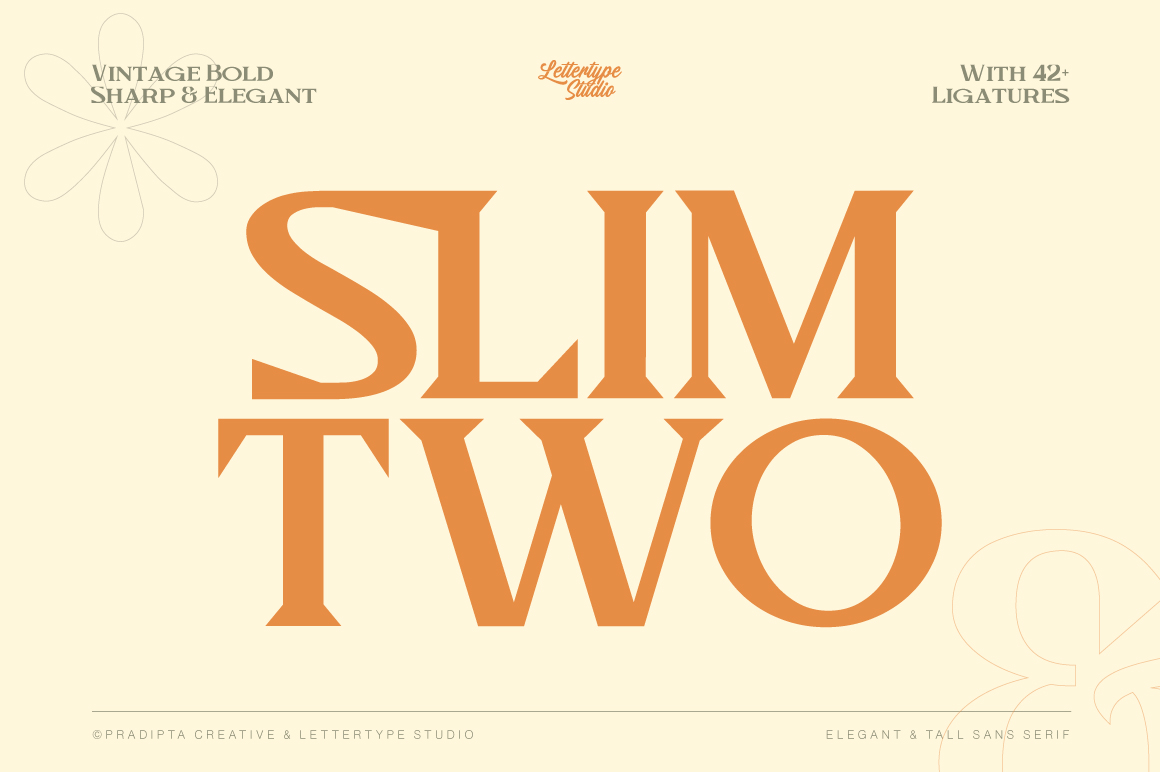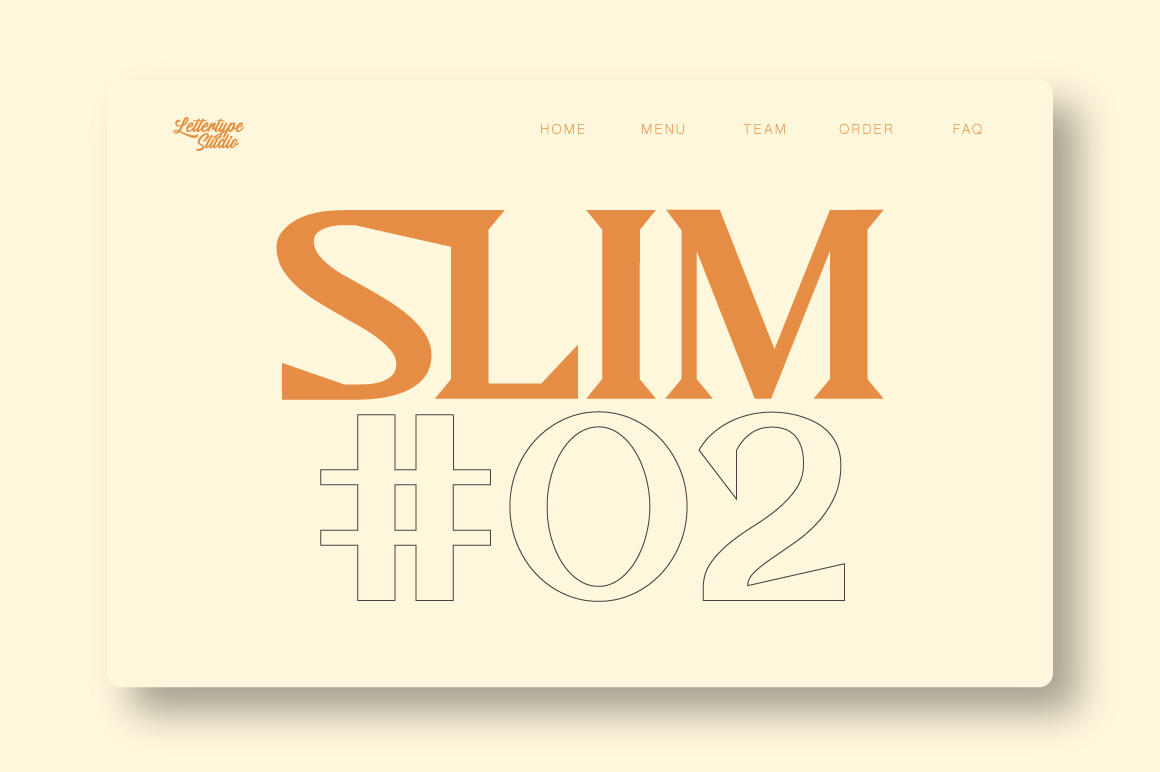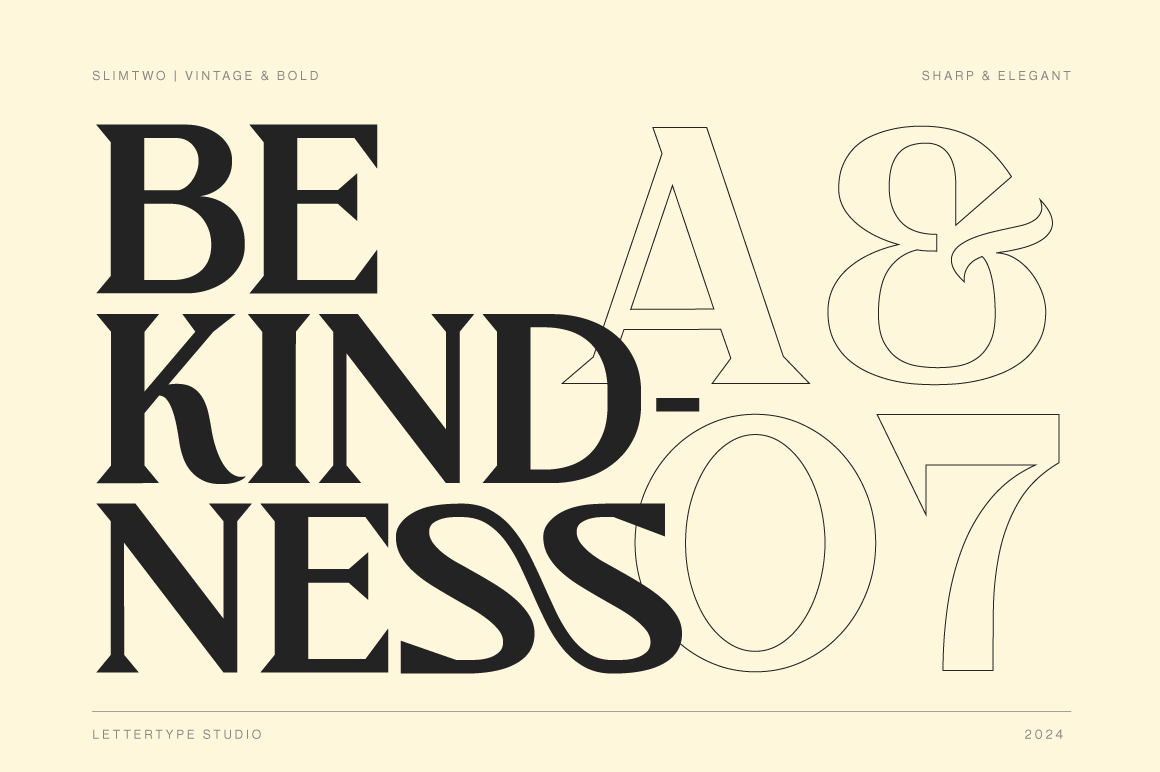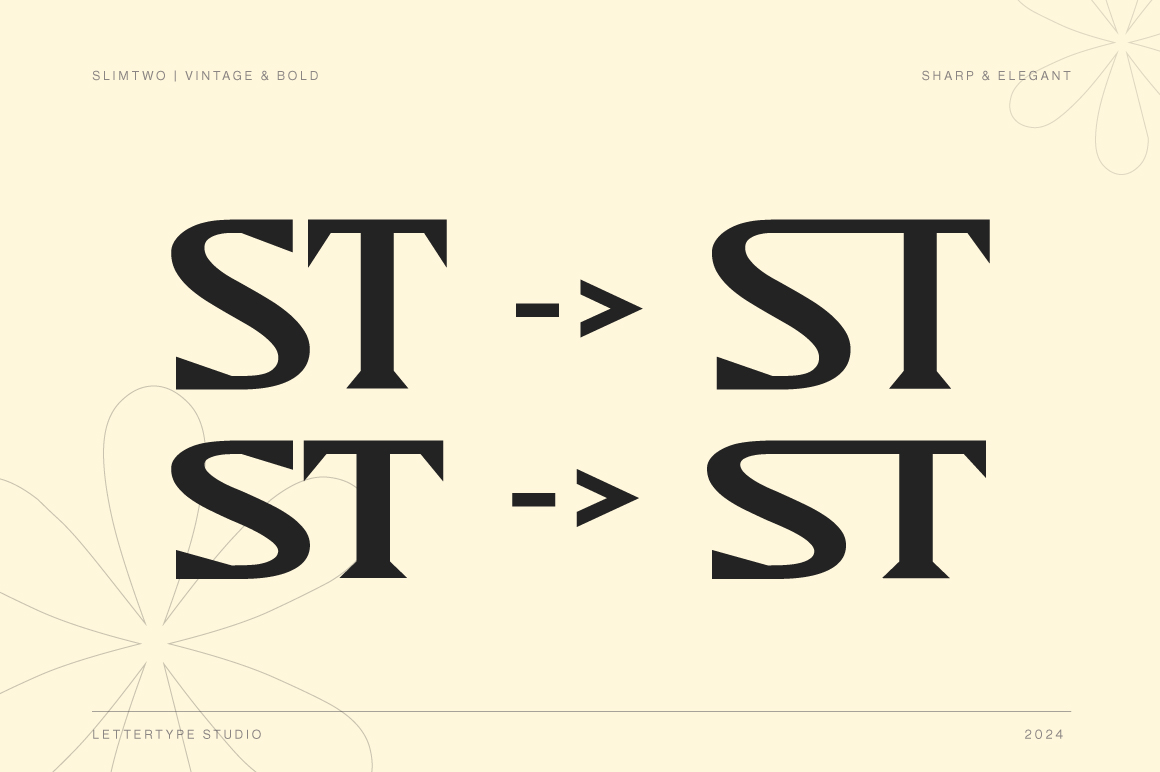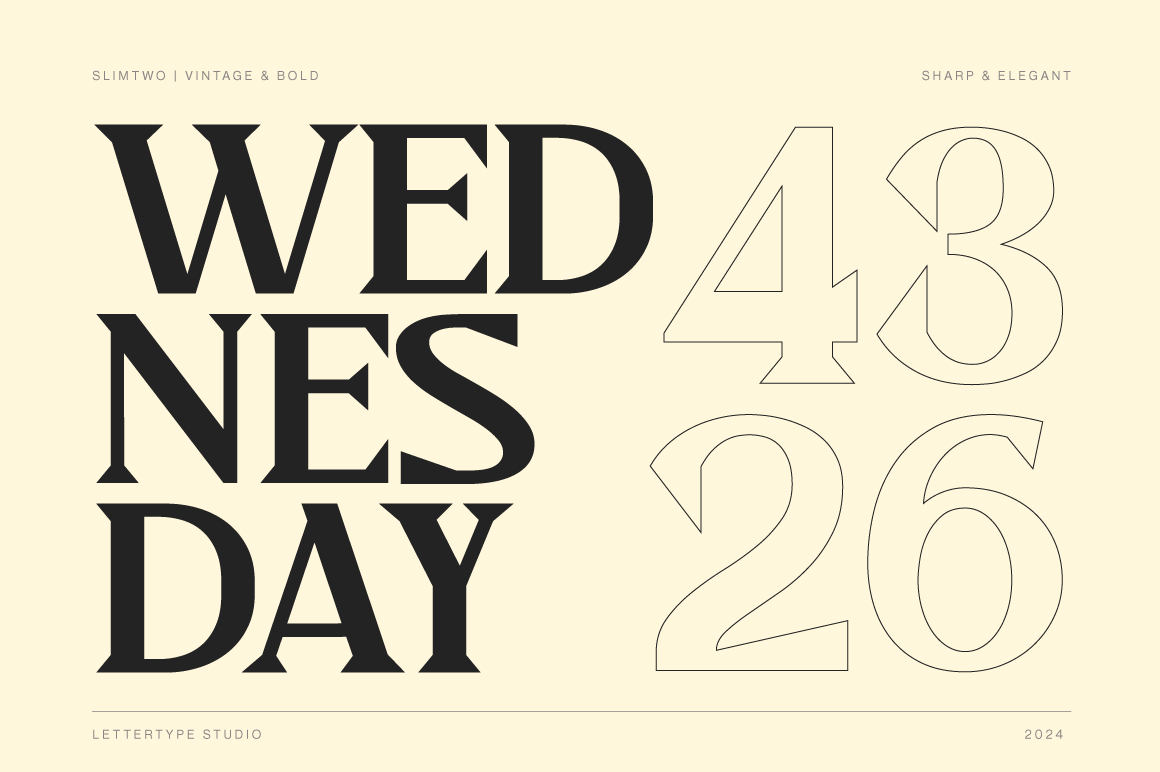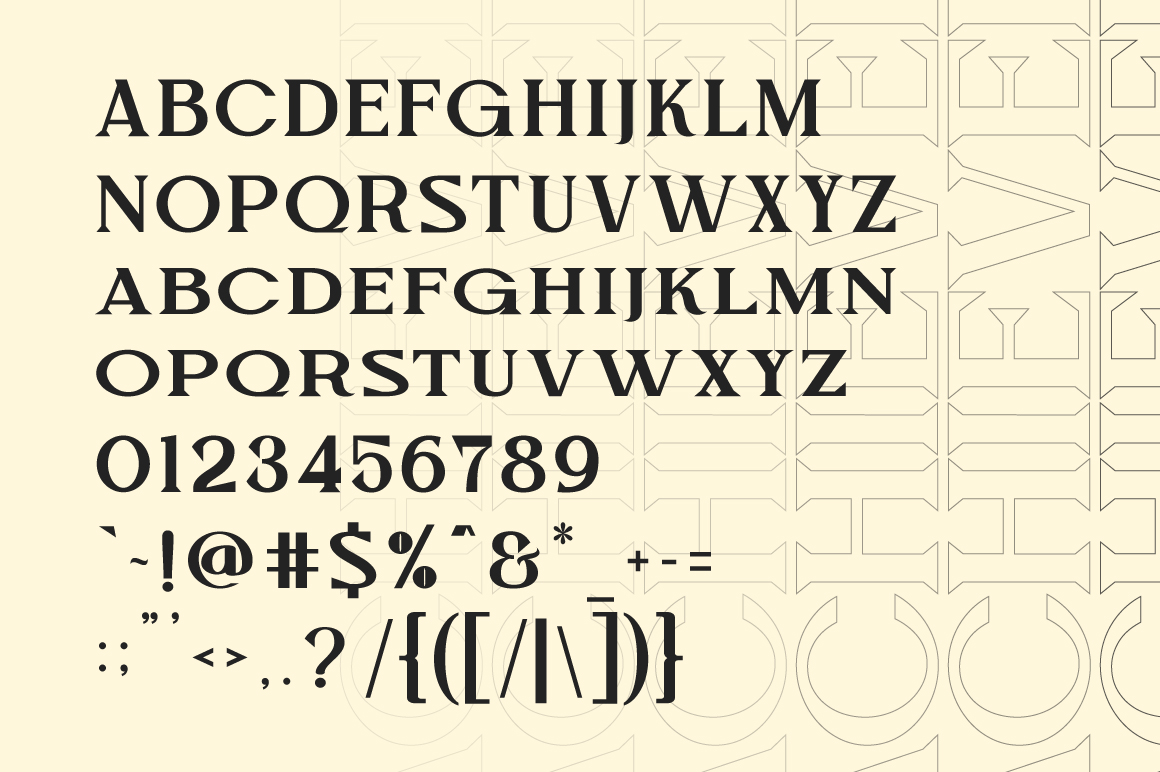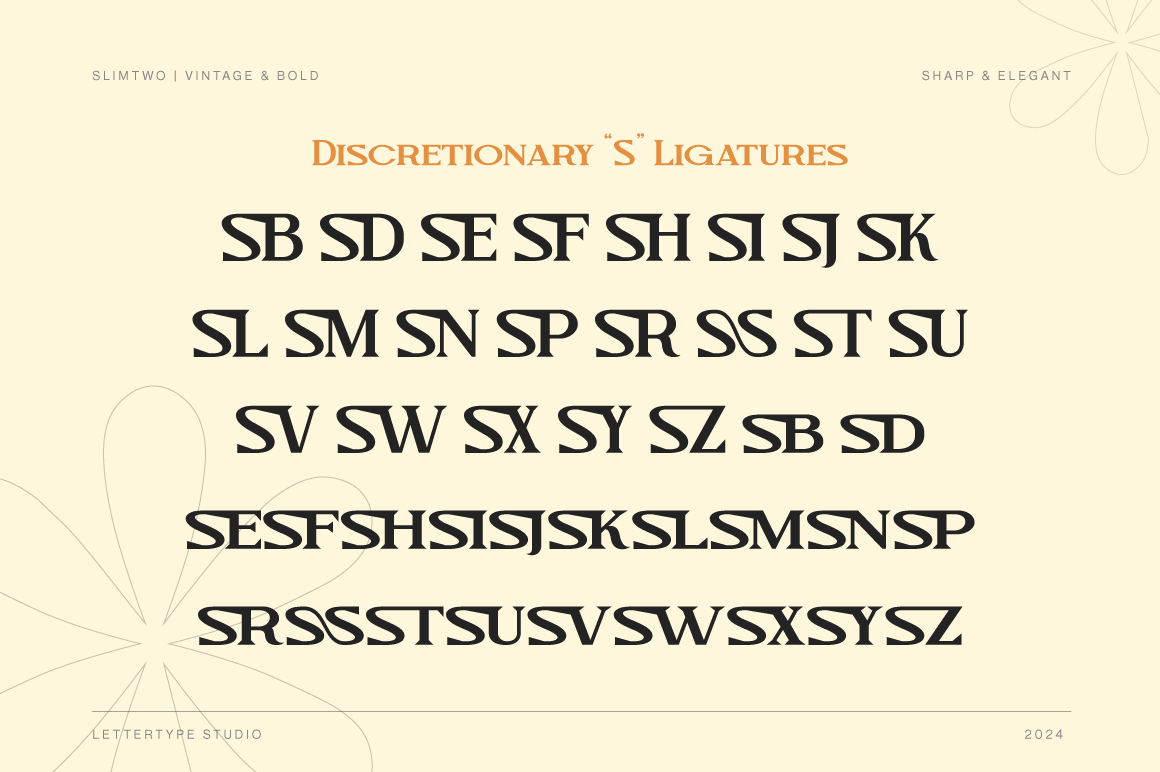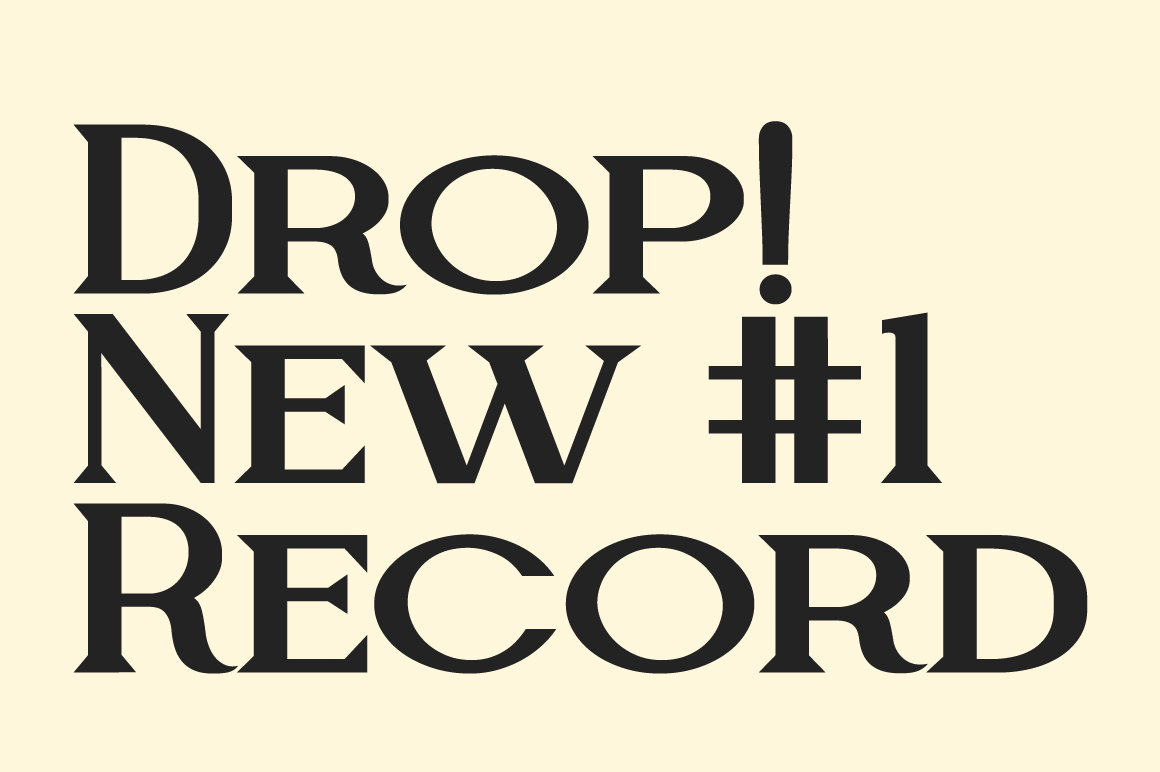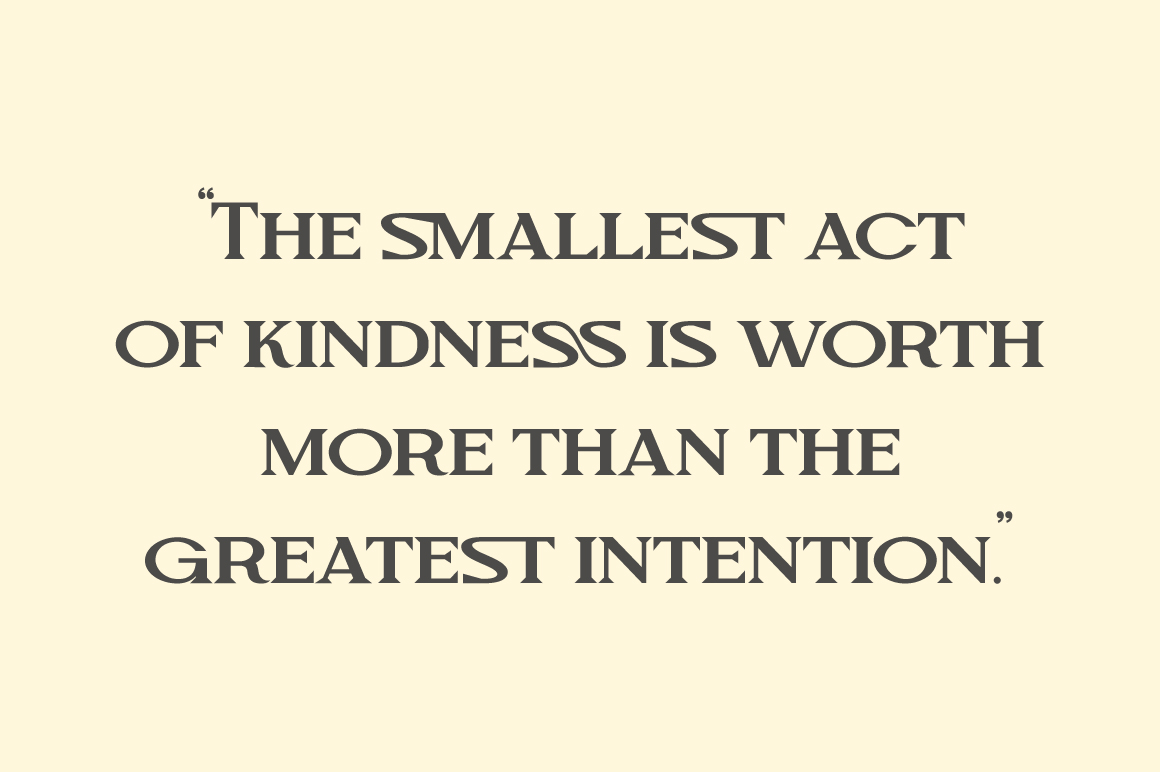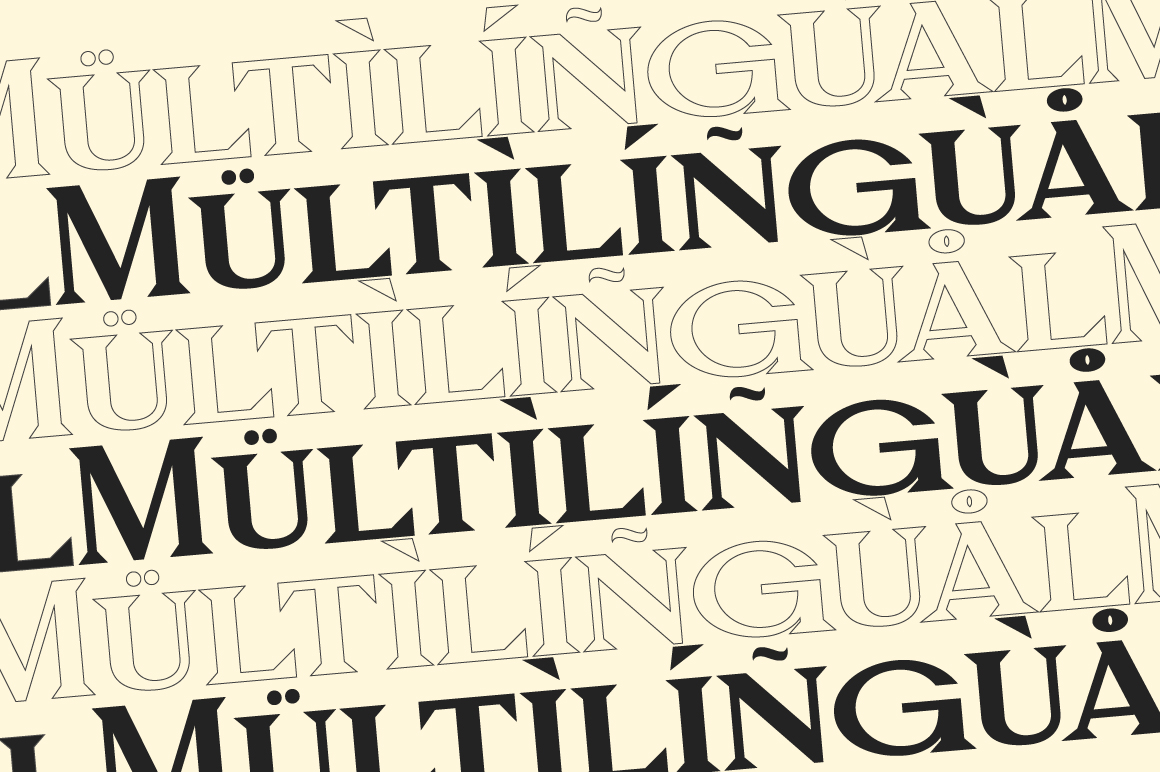
Slimtwo
Slimtwo is a bold vintage serif font crafted with sharp edges, refined details, and timeless elegance. Inspired by classical typography, it brings a sophisticated and confident personality to your designs while maintaining perfect balance between modern structure and nostalgic charm.
Ideal for branding, editorial layouts, logos, and luxury packaging, Slimtwo elevates every project with its bold character and graceful curves. Designed for versatility and readability, it’s the perfect serif choice for designers who appreciate both tradition and modern refinement.
Slimtwo Features:
• Lowercase & Uppercase
• Numerals & Punctuation
• Alternates & Ligature
• Multilingual Support